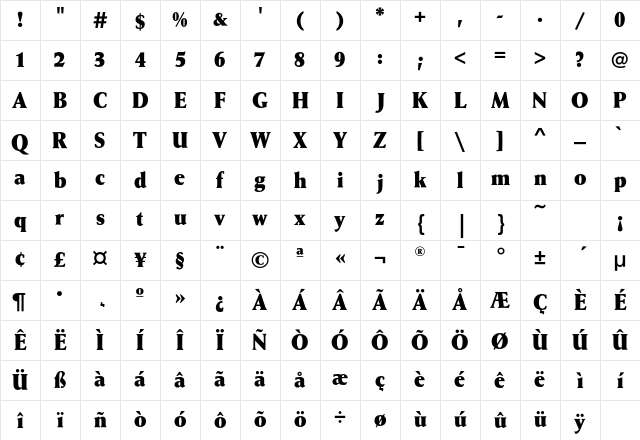
WeissAntiquaEF ExBoldCond
Style: ExBoldCond
Design Context for WeissAntiquaEF
WeissAntiquaEF is a composed and adaptable typeface that performs quietly and consistently across a wide range of design contexts. Its bold stroke weight gives it real presence on the page. Its narrow stance lets it pack a punch even in space-constrained designs.
Pro Tip: Use WeissAntiquaEF in both headline and body roles to test its range before committing to a single application.